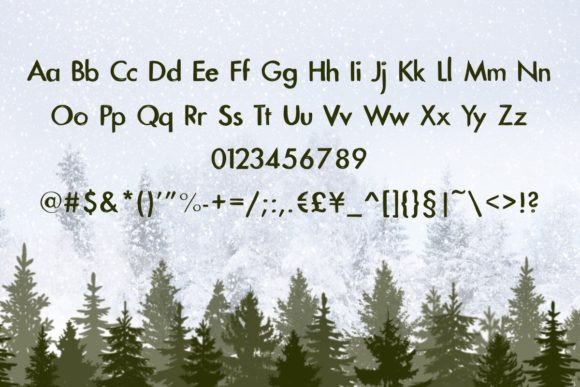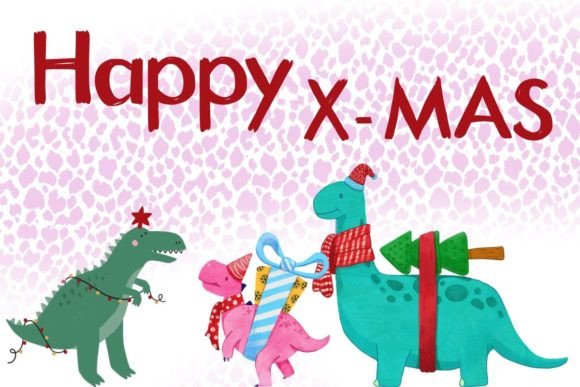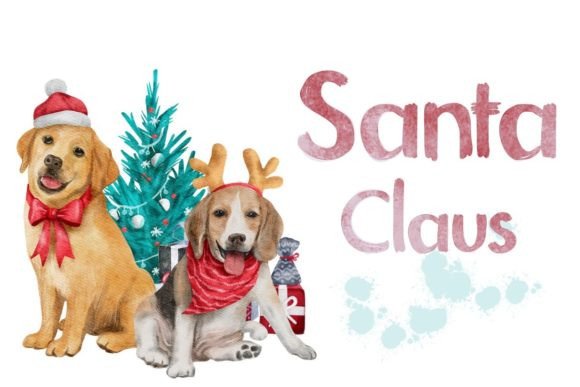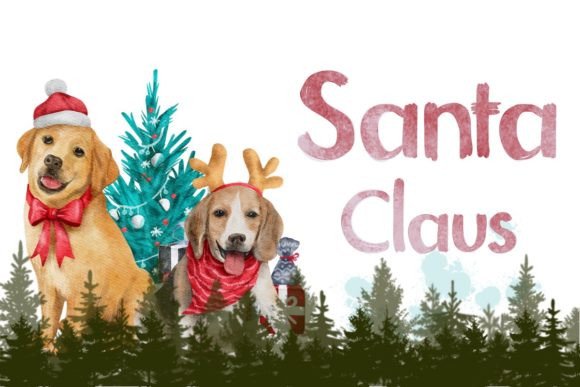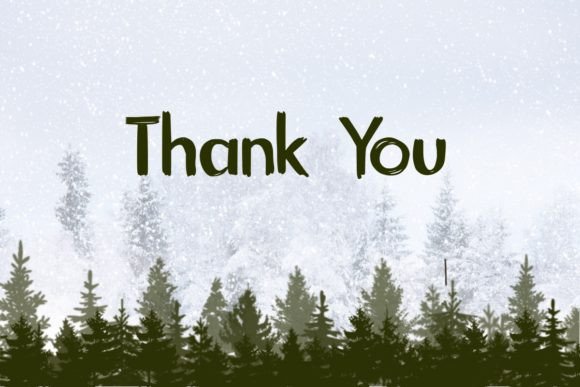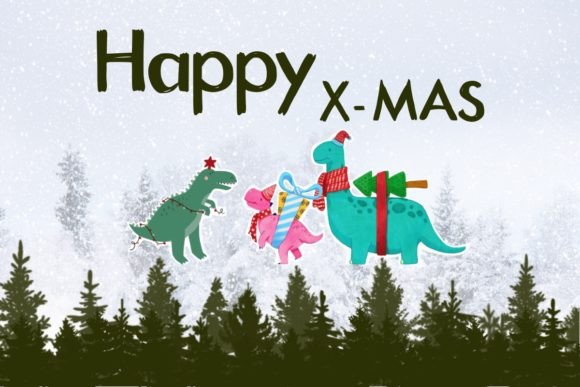
The Ultimate Christmas Tree Font Guide: Add a Quirky Touch to Your Designs
It’s the most wonderful time of the year, and as designers, crafters, and creative hobbyists, we’re probably knee-deep in holiday-themed projects. I still remember the year I was working on a Christmas card design, struggling to find the perfect font that captured the festive spirit. My client wanted something fun, playful, and eye-catching, but not too over-the-top. After hours of scouring font libraries, I stumbled upon the Christmas Tree Font – and it was love at first sight! ✨
An Honest Review of Christmas Tree Font
So, what makes Christmas Tree Font so special? Let’s dive into the good stuff and a few quirks to keep in mind.
• ✨ Cute and Friendly: Christmas Tree Font is a handwritten display font that exudes warmth and friendliness. It’s perfect for adding a personal touch to your designs.
• ✅ Festive and Quirky: This font is designed to bring a smile to people’s faces. Its playful vibe makes it ideal for holiday-themed projects, party invitations, and more.
• 🎉 Versatile: Despite its festive nature, Christmas Tree Font can be used for a wide range of projects, from social media graphics to print materials.
While Christmas Tree Font is an amazing addition to any design project, there are a few things to keep in mind:
• ⚠️ Legibility at Small Sizes: As with many script fonts, Christmas Tree Font can become a bit tricky to read at smaller sizes. Make sure to test it in your design and adjust as needed.
• 🤔 Overuse: While the font is festive and fun, using it excessively can make your design feel overwhelming. Balance is key!
The Backstory Behind Christmas Tree Font
Legend has it that Christmas Tree Font was created by a designer who wanted to capture the magic of the holiday season in a single font. Inspired by childhood memories of decorating the Christmas tree, the designer poured their heart and soul into crafting a font that’s both festive and fun. And so, Christmas Tree Font was born – a gift to designers and crafters everywhere! 🎄
Q: What type of projects is Christmas Tree Font best suited for?
A: Christmas Tree Font is perfect for holiday-themed projects, party invitations, social media graphics, and any design that requires a playful, festive touch.